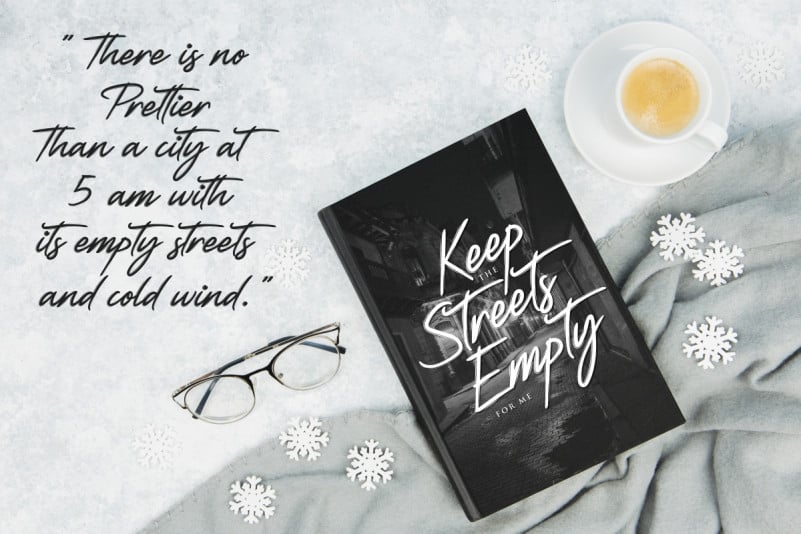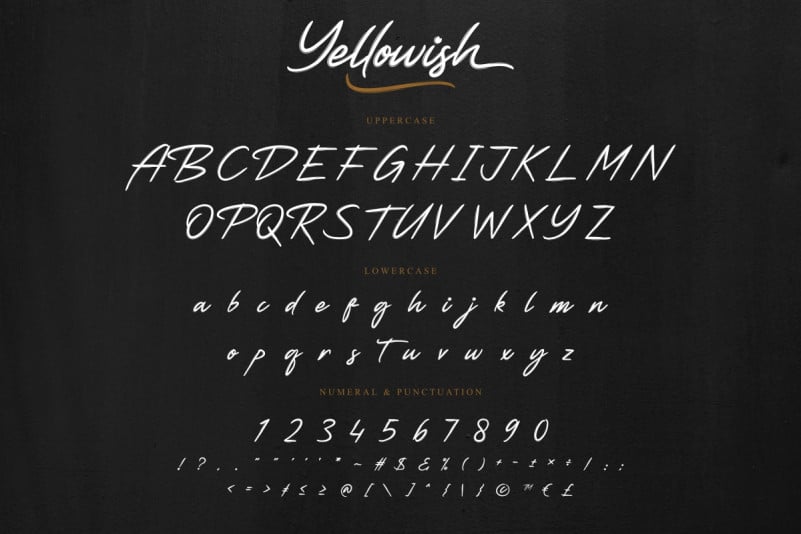
Yellowish Hand Brush Script Font
Yellowish Hand Brush Script Font is a Hand brush script font. The style of this font are rough, textured, elegant, luxury and classic brush font.